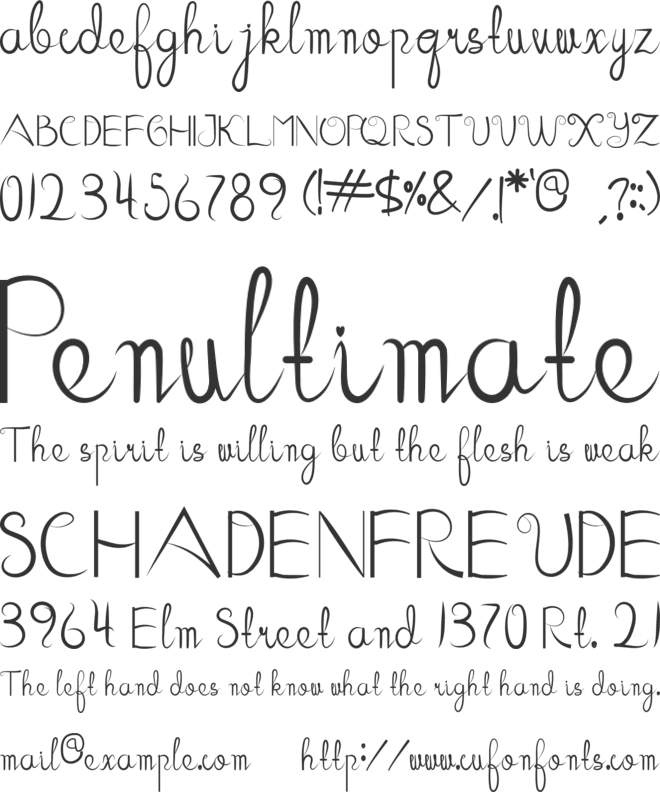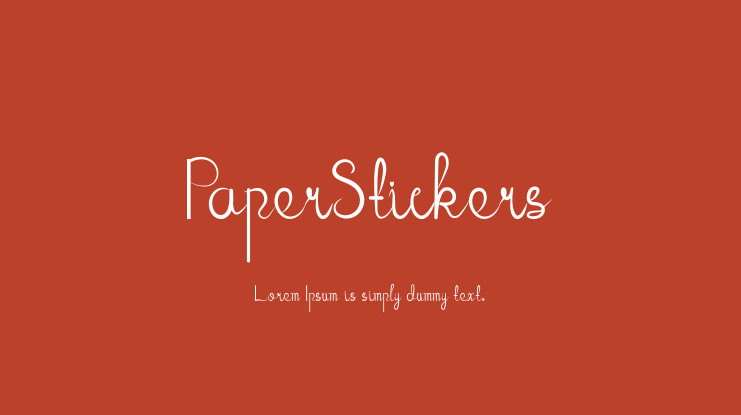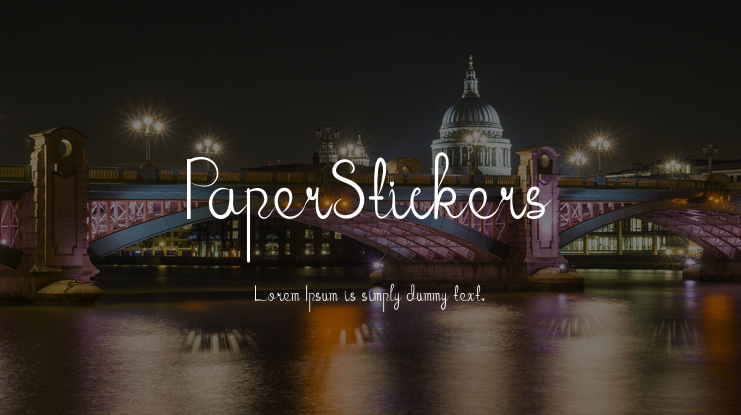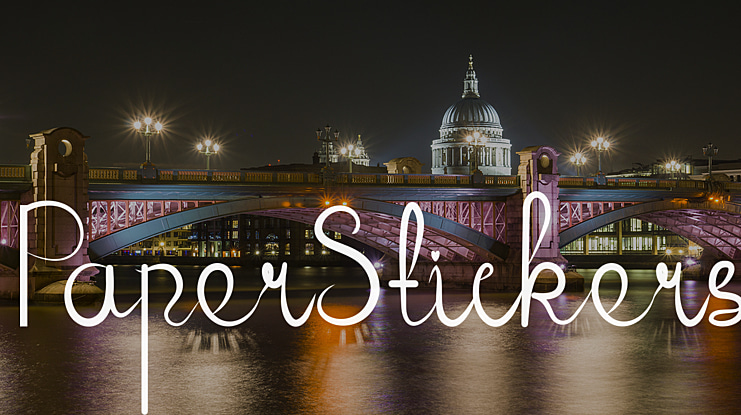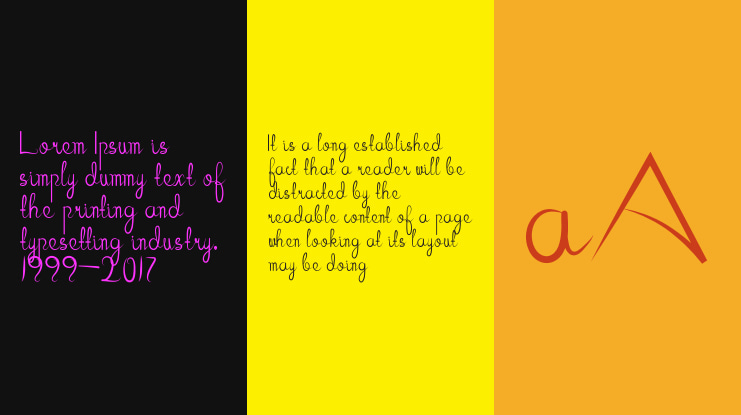
PaperStickers Font
Paper Stikers is a sweet and cursive handwritten font. This gentle font will look gorgeous on a variety of design ideas. It will add a joyful and romantic touch to each of your projects!https://www.creativefabrica.com/product/paper-stikers/ref/760893/